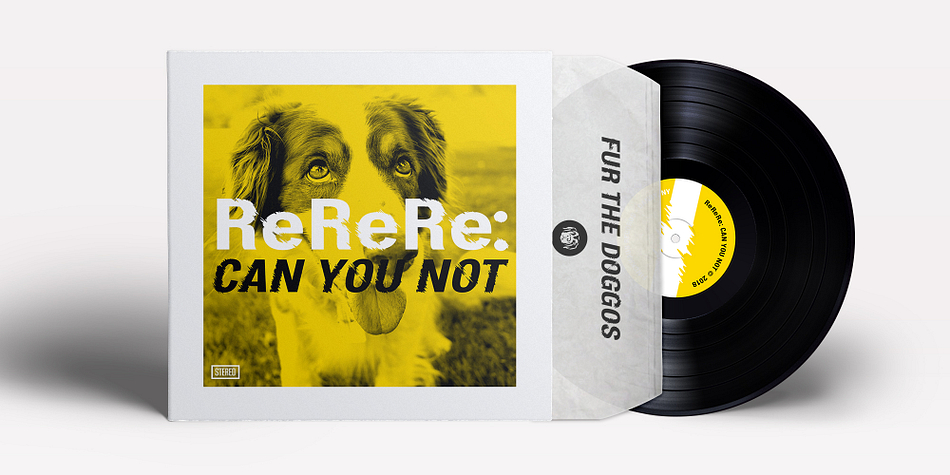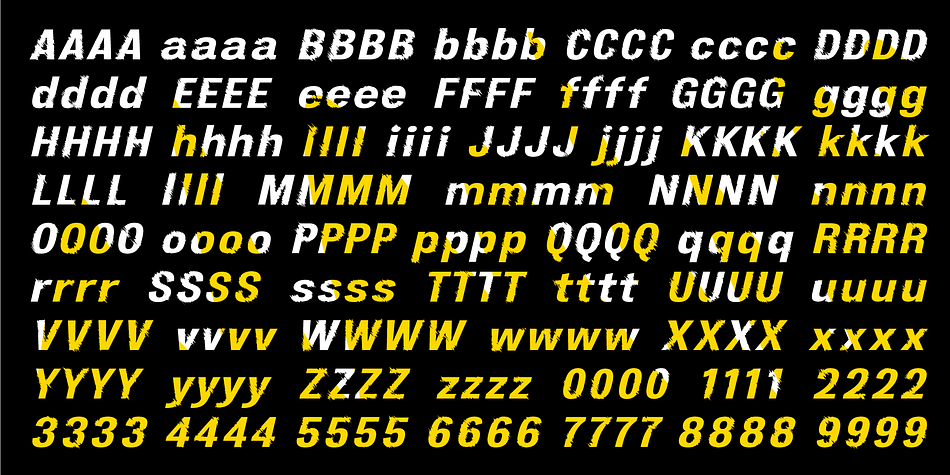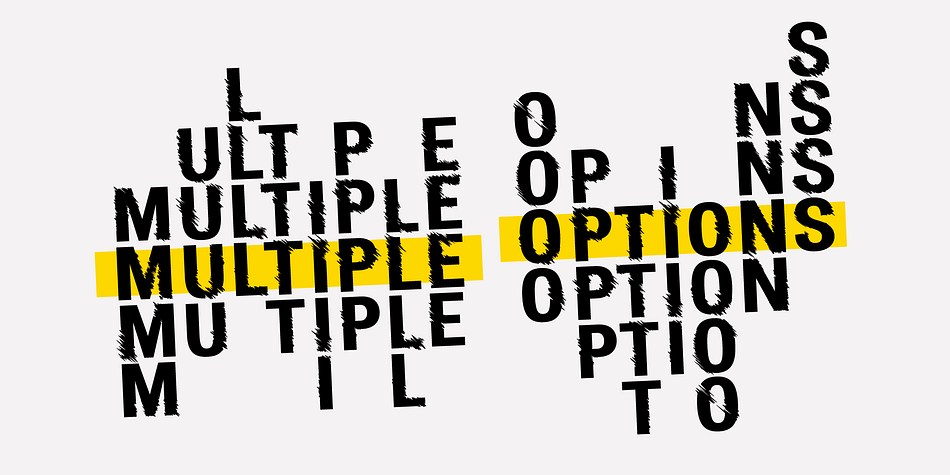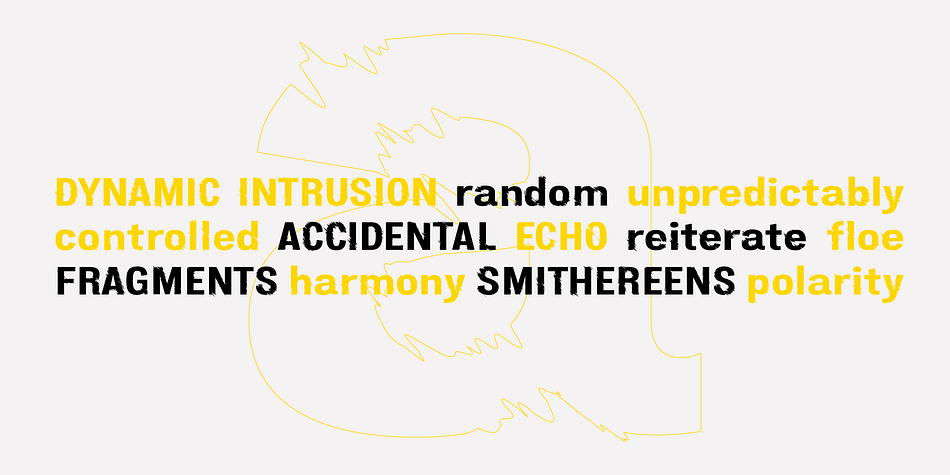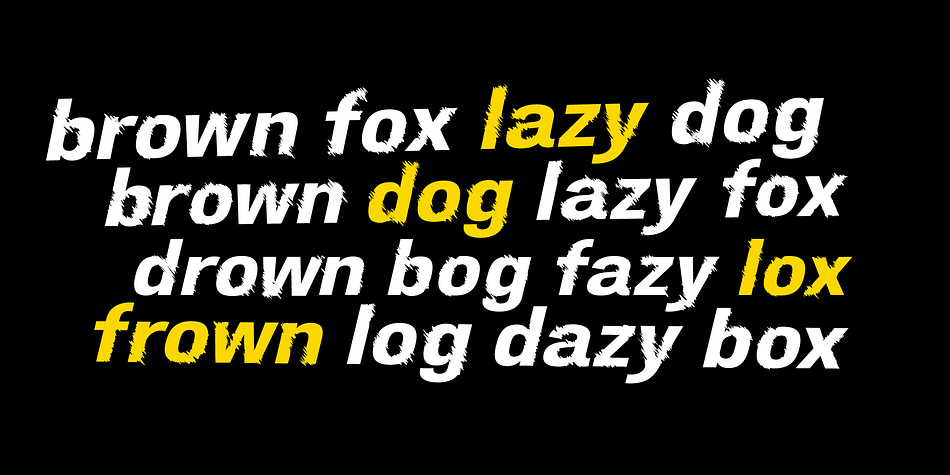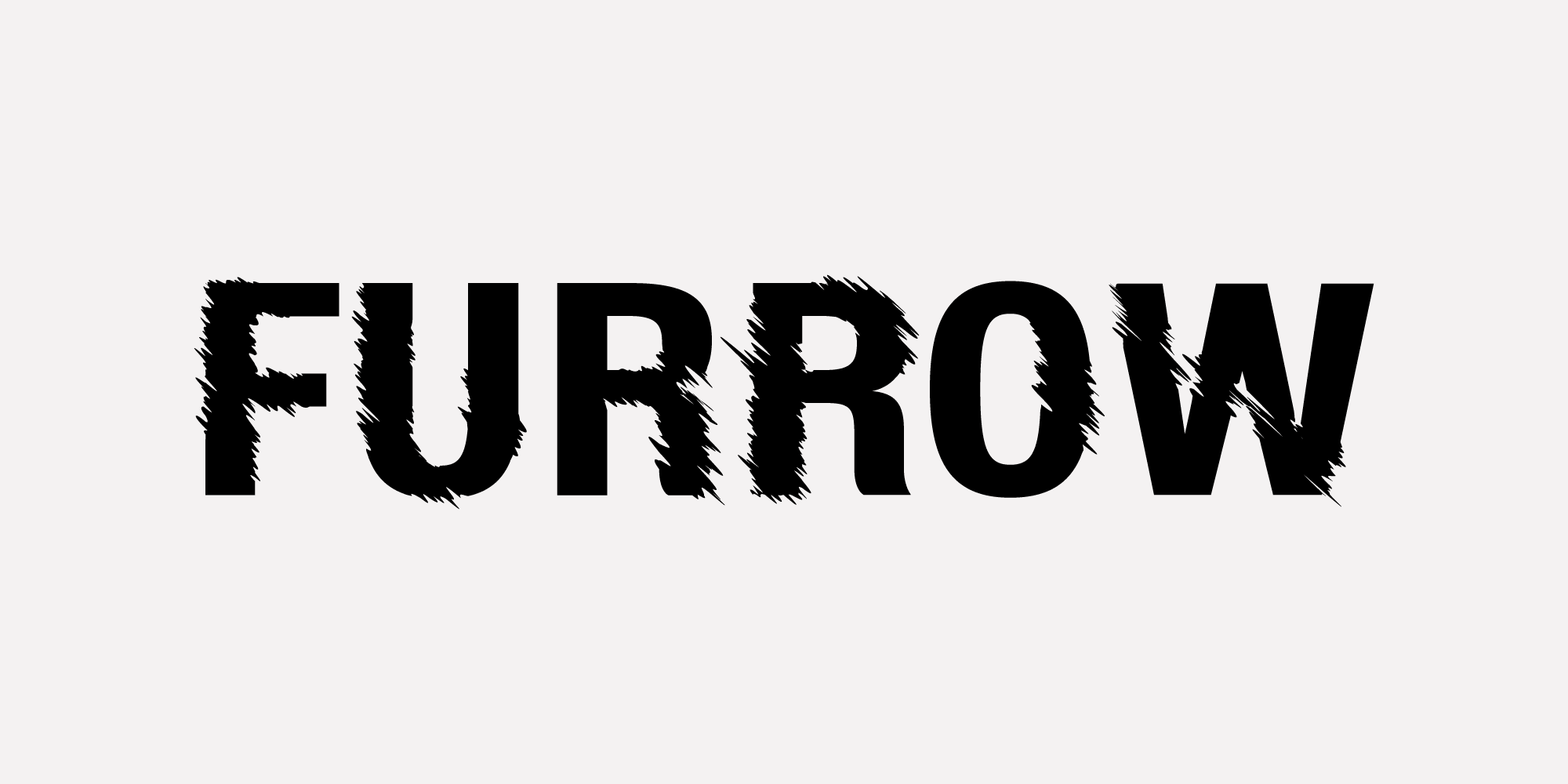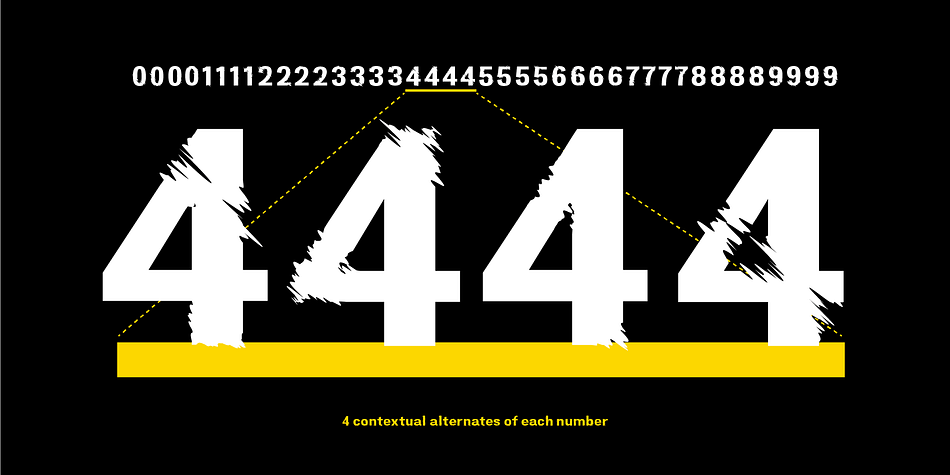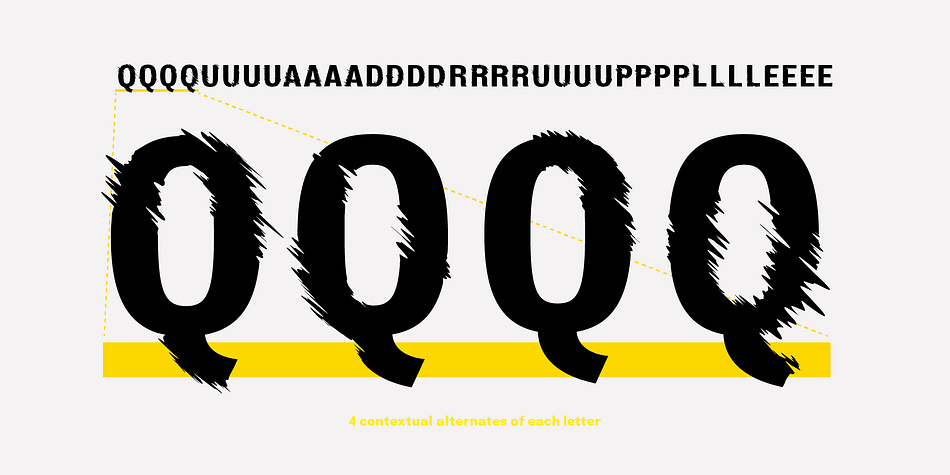
Inspired by a desire to rough up a perfectly clean sans serif. Furrow is perfect for getting attention, whether you’re using it for headlines or supplementary styling.
500+ characters, and 4 stylistic alternates for each letter and number! If you’re using an Adobe product (like Photoshop of Illustrator) make sure that Contextual Alternates is checked off in the Opentype/Charater panel (see this reference image: https://www.tylerfinck.com/calt.png ). Even if it looks toggled ON by default, toggle it off and back on, trust me.
By using Furrow with contextual alternates your words will cycle through all four alphabets. Say you type “people” - the second “e” will be different from the first. This is also super useful for double letters (“TT” LL” “ee” etc.) and words with lots of repetition (MISSISSIPPI).